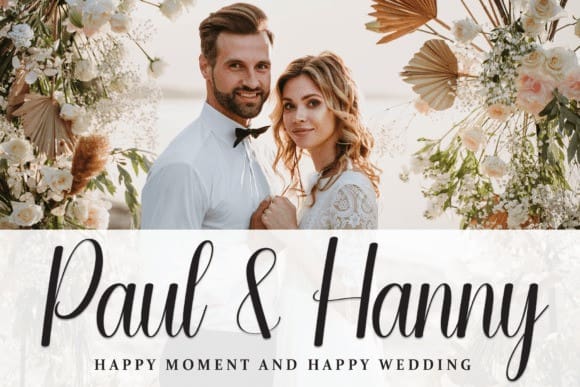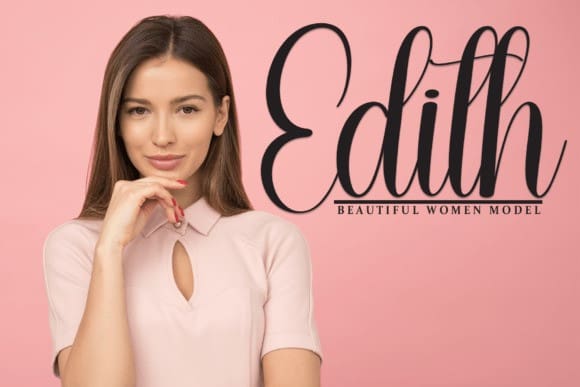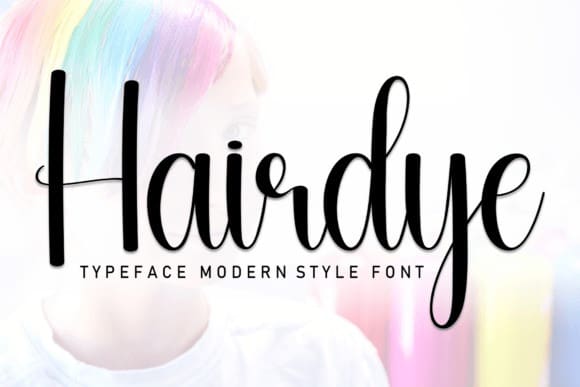
Hairdye Script Font
Hairdye Script Font is a sweet and friendly handwritten font. Fresh and cute, this font is ideal for writing wedding invitations, cards, or any other design that might need a fun touch!